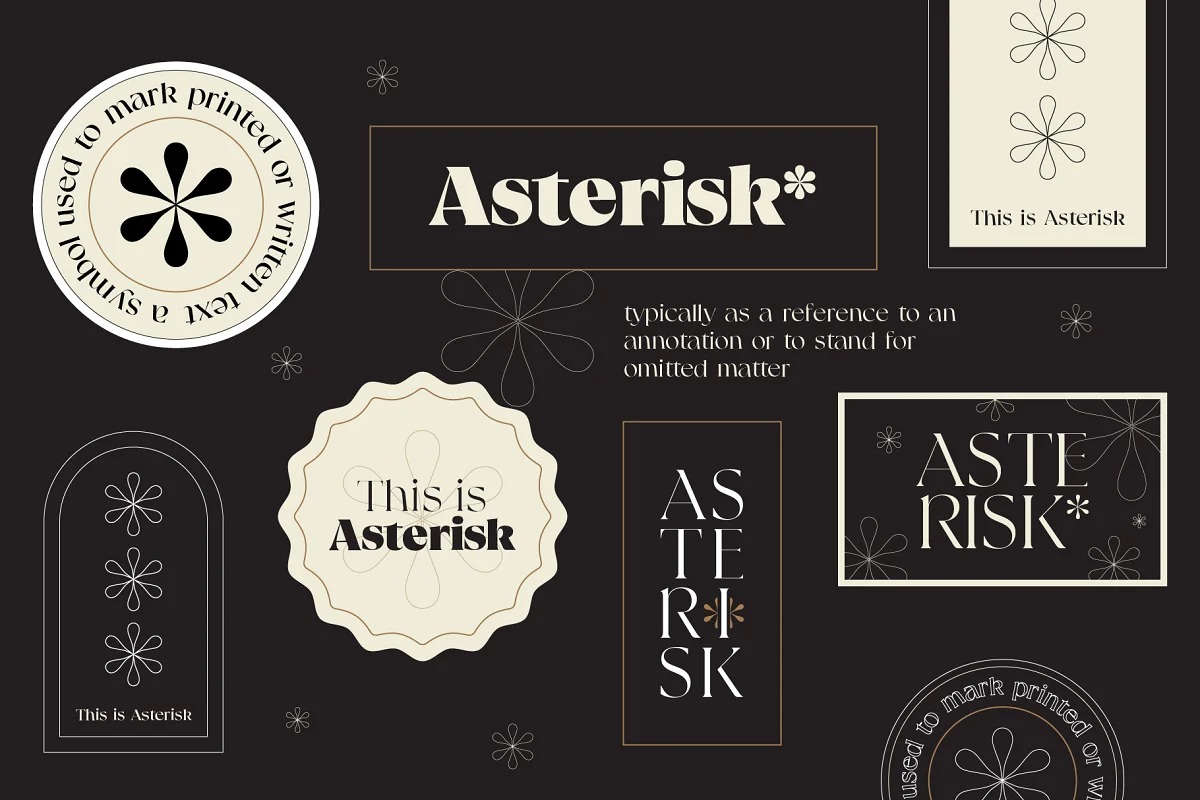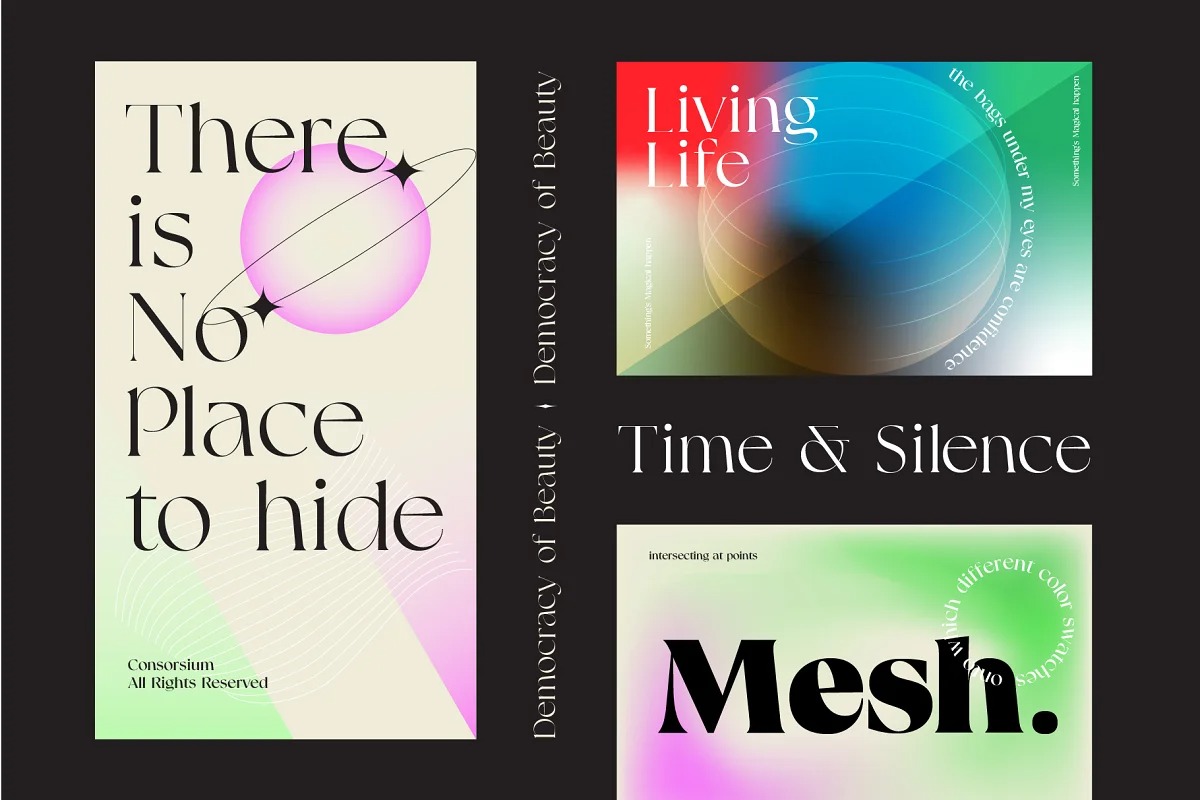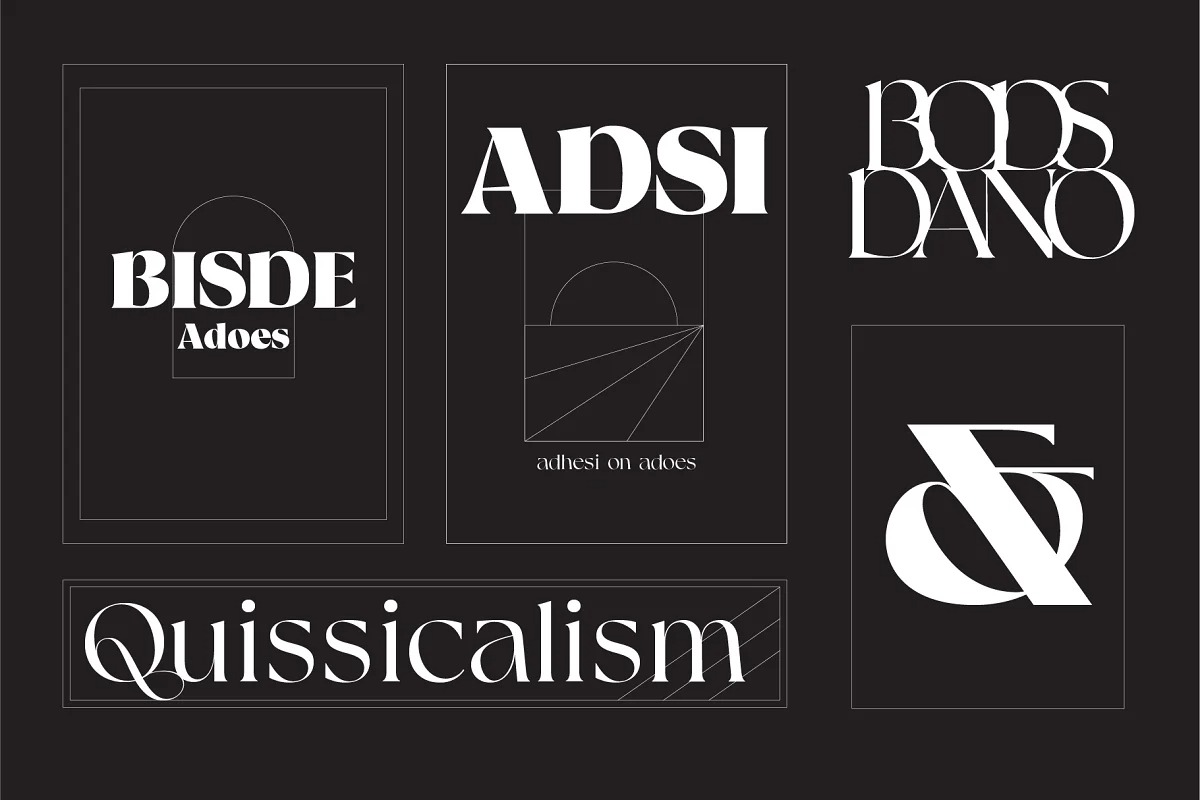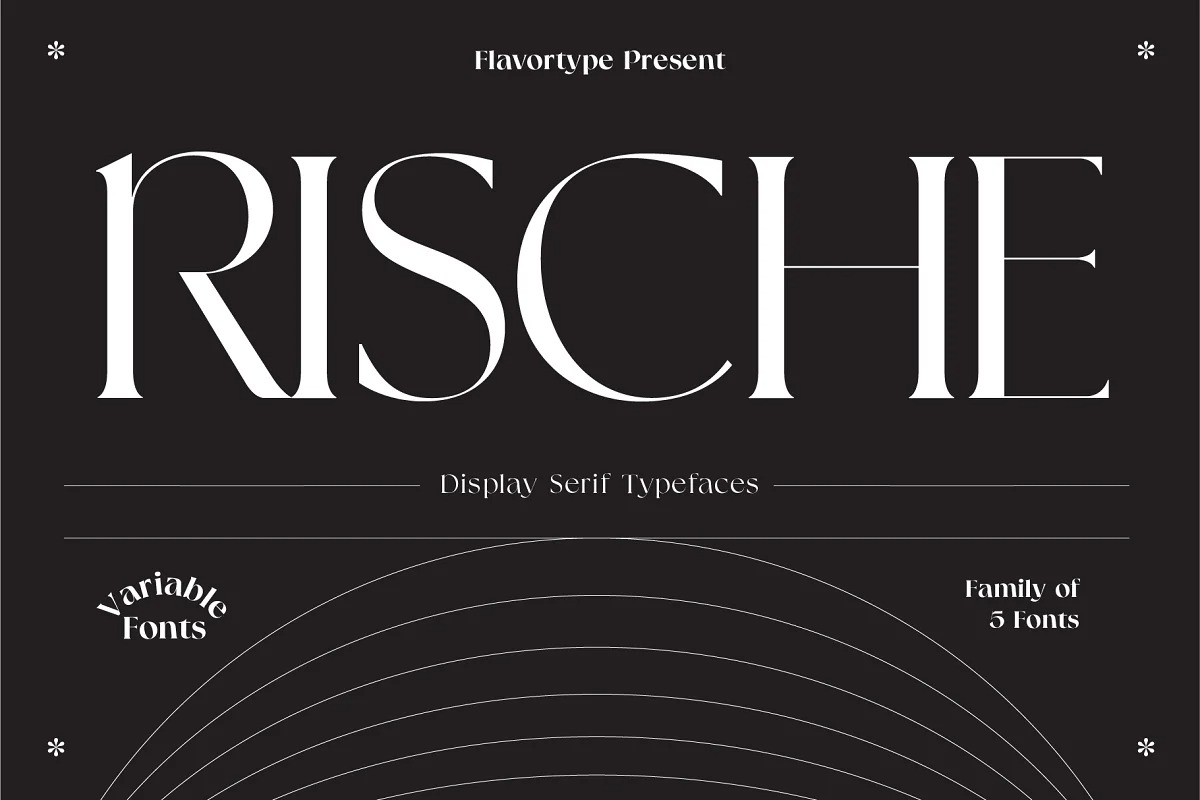
Rische Font
Rische Serif Font
This is a typeface designed by Flavortype. Born in the year 2021, With spirit in new era pasca pandemi of covid 19. This is stylish modern serif font. You won’t be worried which one to fit to your creative design. Also, You can Mix it up all of it without worrying design collision. Rische also available on with Variable Fonts, so it will generate more weight than the standard fonts, form 100 to 700.